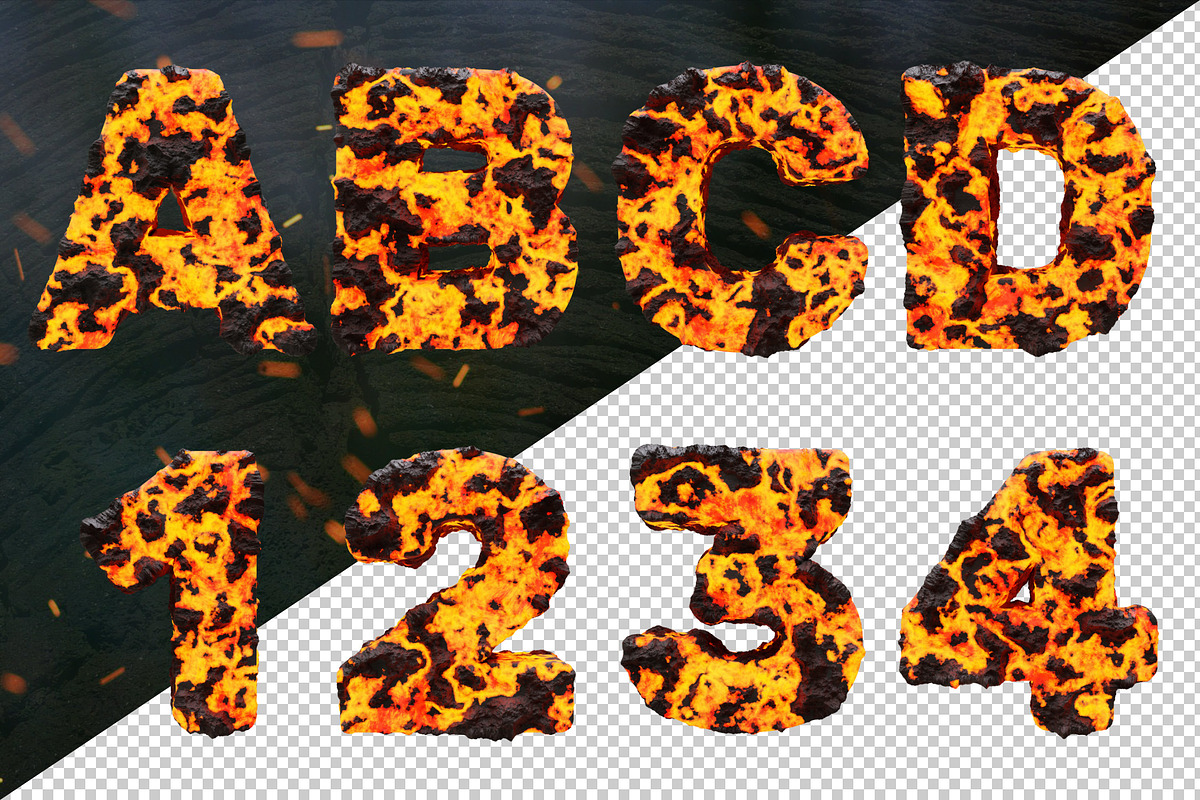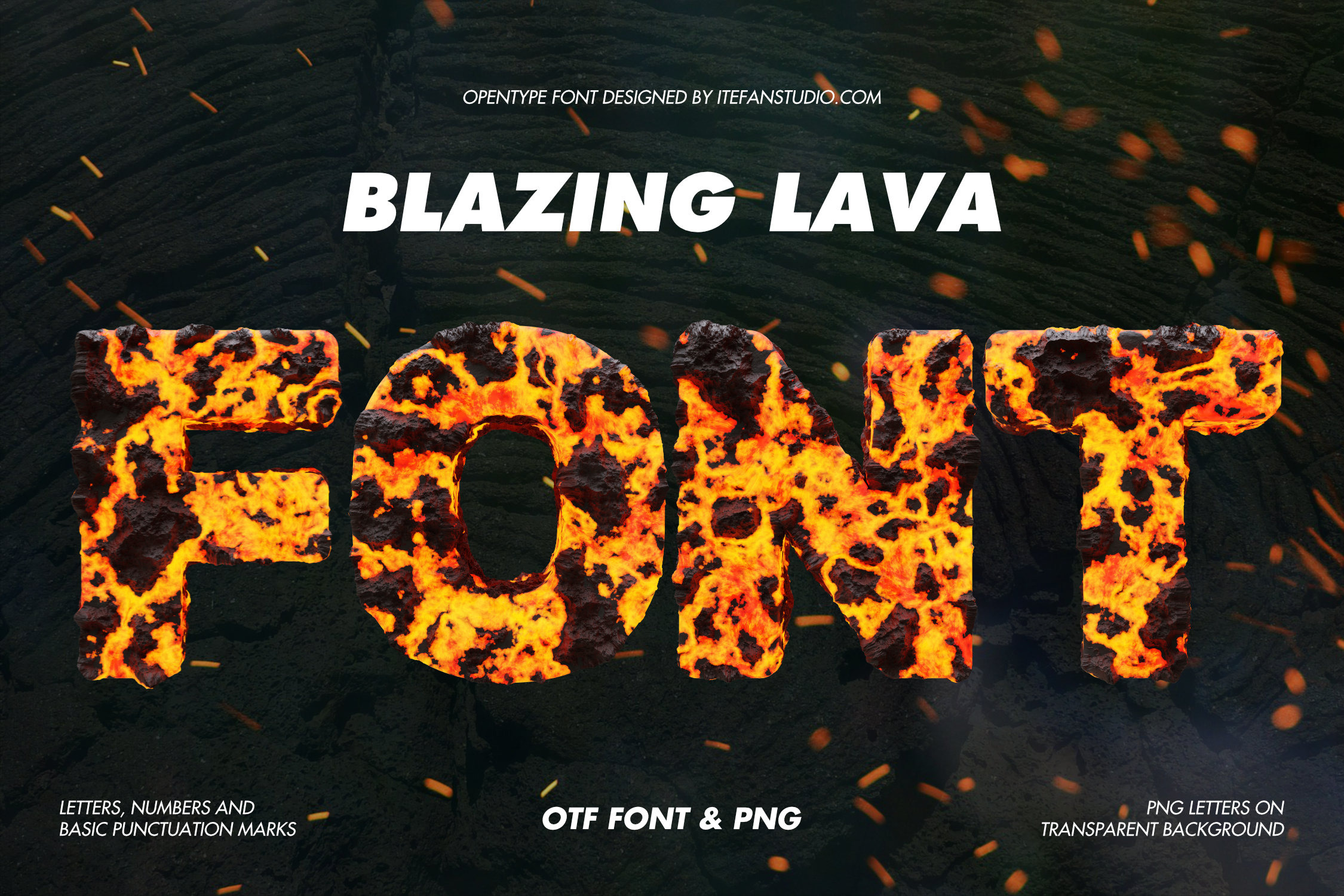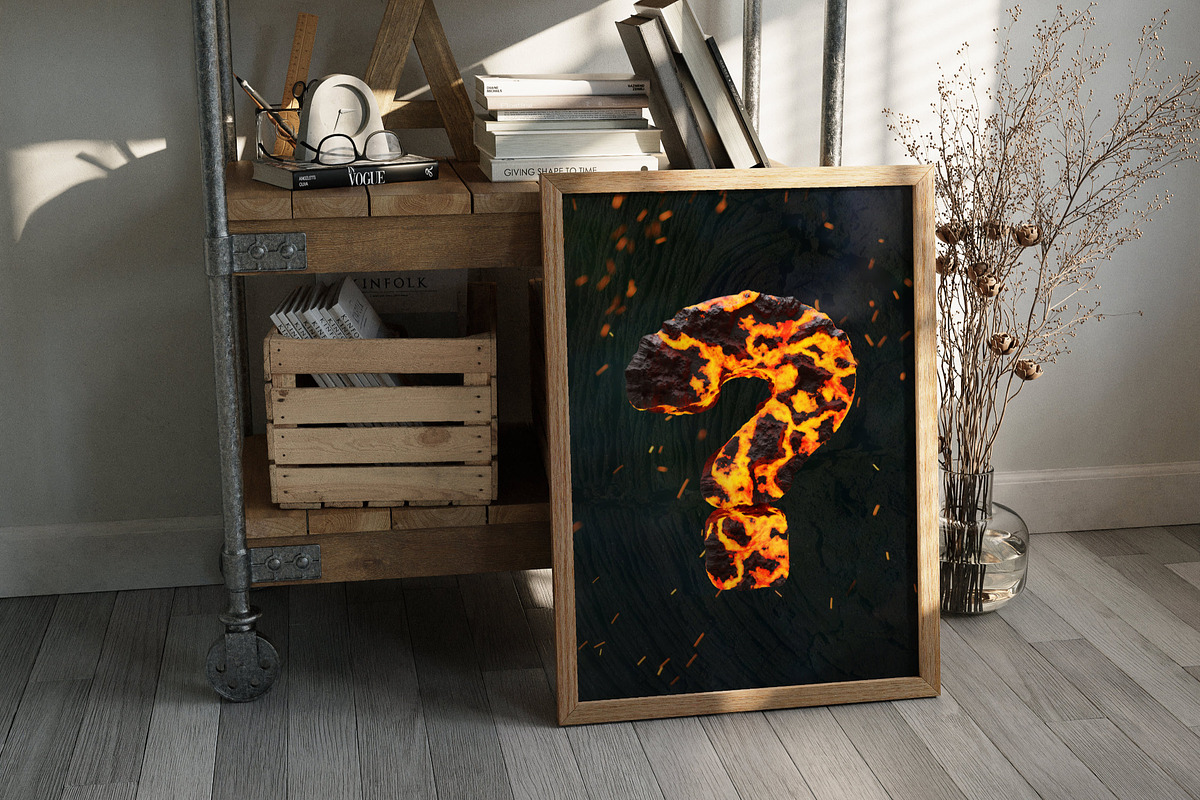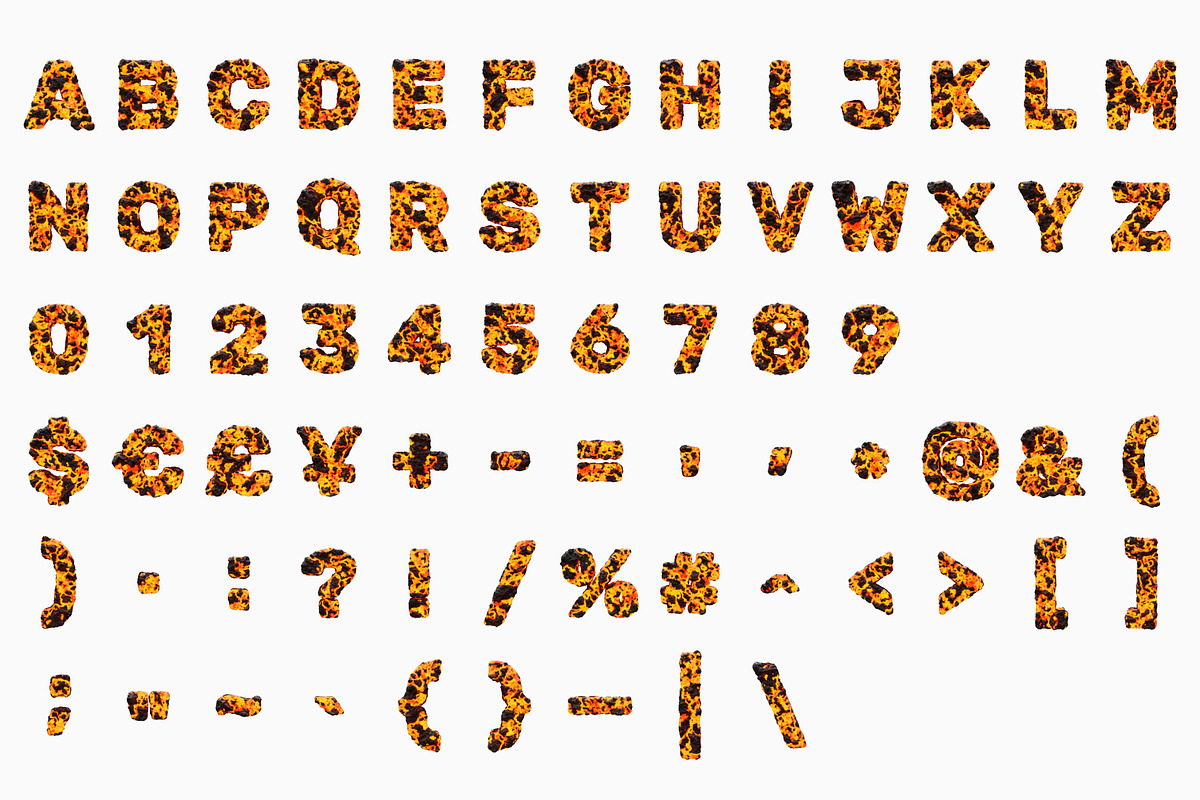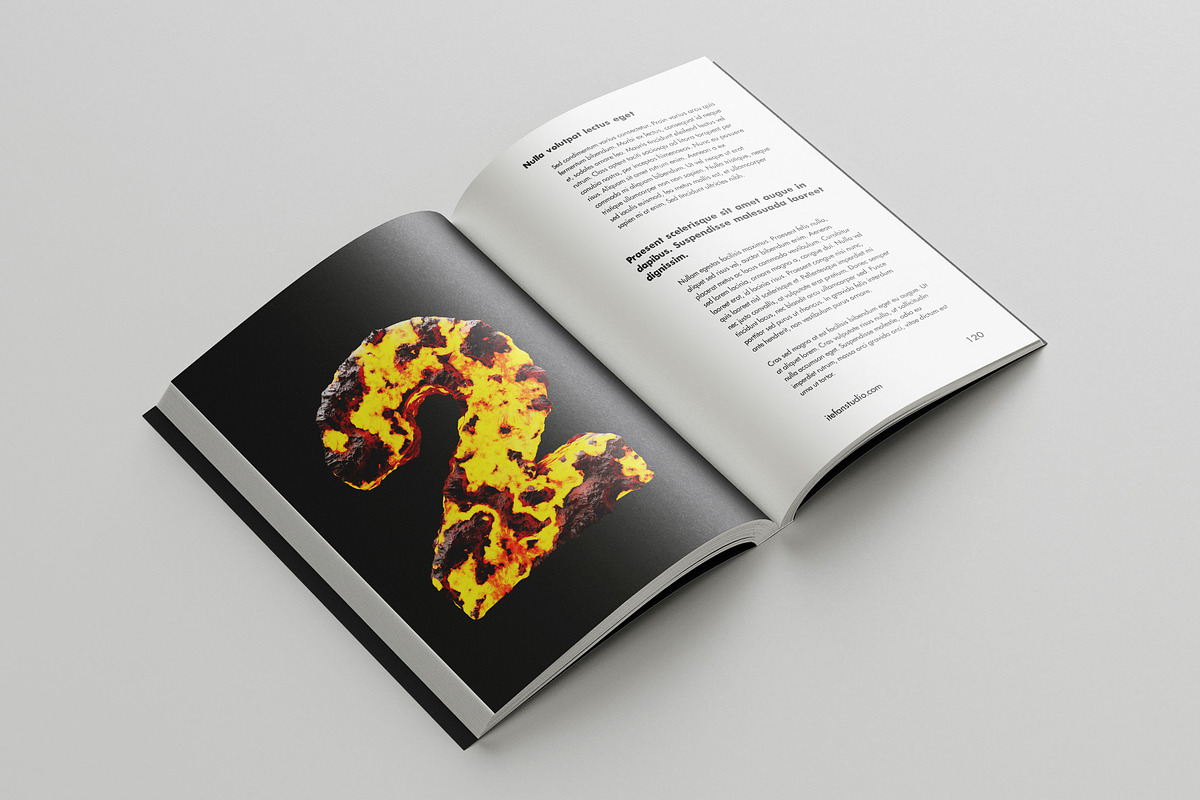
Blazing Lava Font
Set your designs ablaze with this fiery lava-textured font, bursting with explosive energy and volcanic power. Featuring glowing molten orange flames intertwined with rugged, charred rock details, this dynamic typography delivers a striking and primal impact. Available in both OTF and PNG formats with transparent backgrounds.
- Letters : A B C D E F G H I J K L M N O P Q R S T U V W X Y Z
- Numbers : 0 1 2 3 4 5 6 7 8 9
- Others : $ € £ ¥ + - = ' , * @ & ( ) . : ? ! / % # ^ [ ] ; " ~ ` { } _ |
This font is a high-resolution OpenType typeface featuring uppercase letters, numbers, and basic punctuation, with each character approximately 800 pixels tall. A complete preview of all letters and glyphs is provided for reference.